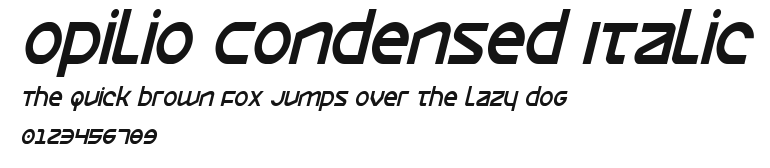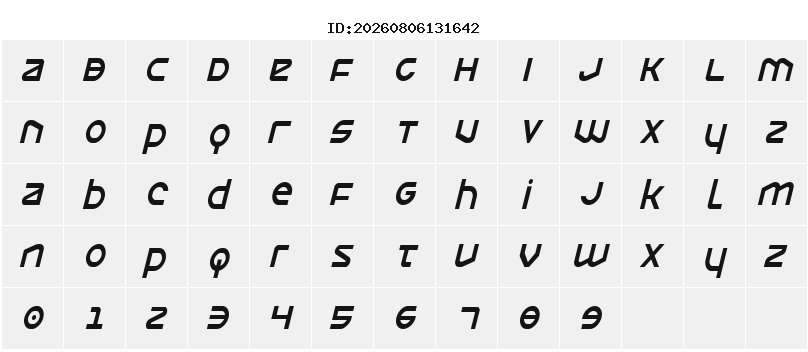
• Font Name: Opilio Condensed Italic
• Font Style: Condensed Italic
• Full Font Name: Opilio Condensed Italic
• PostScript Name: OpilioCondensedItalic
About Opilio Condensed Italic.ttf
Opilio Condensed Italic.ttf is a modern, elegant sans-serif font designed for ultimate readability and visual harmony. Perfect for branding, headlines, web design, and print materials.